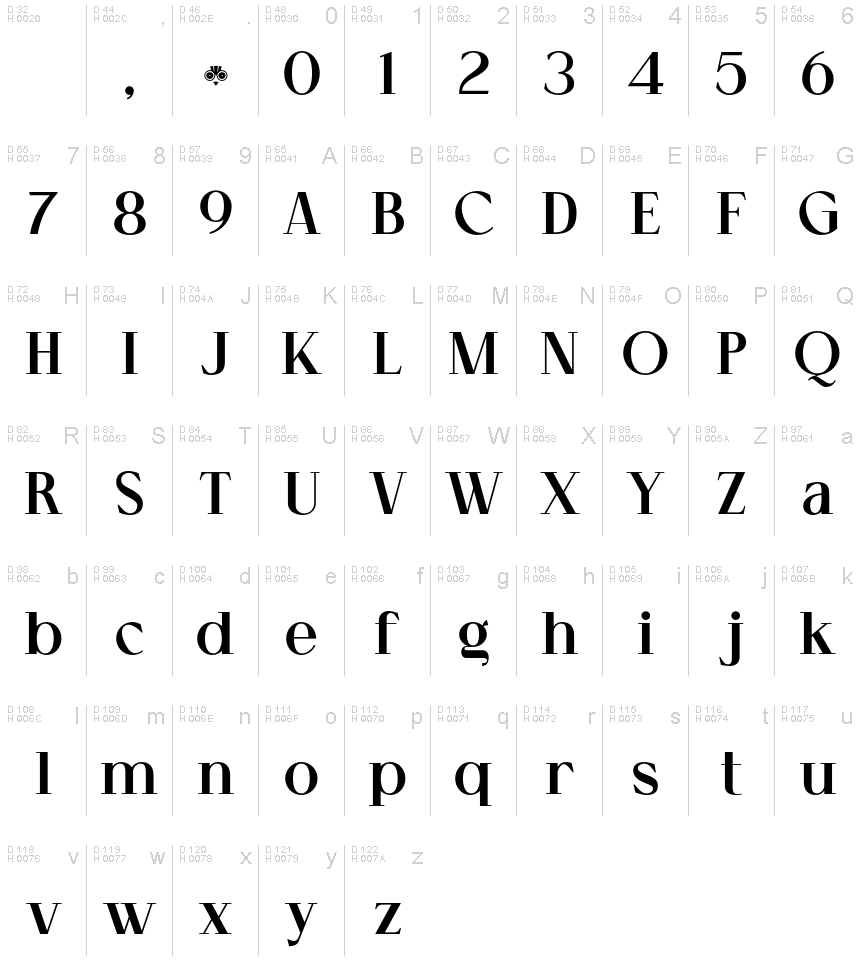
Cellofy ExtraBold font, from the distinguished Cellofy family by Owlking Project, is a striking serif typeface that commands attention. With its bold and dynamic letterforms, this font exudes an elegant yet robust aesthetic, perfect for making a statement. Its distinct serifs lend a traditional touch while maintaining modern sophistication. Whether you're crafting headlines, branding projects, or editorial designs, Cellofy ExtraBold offers versatility and flair.